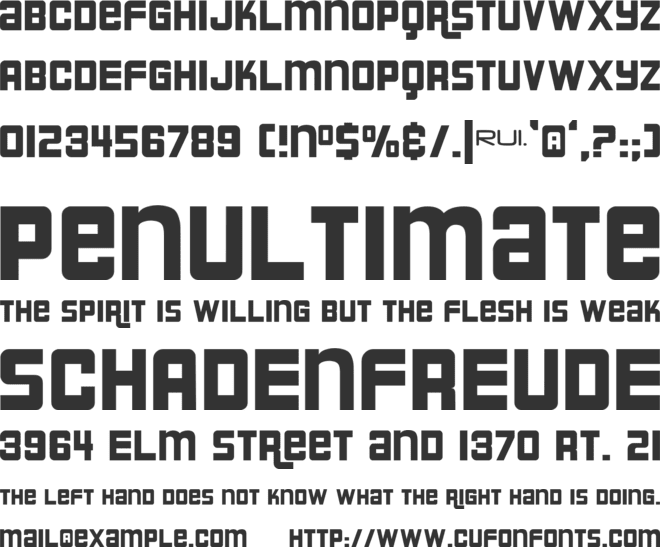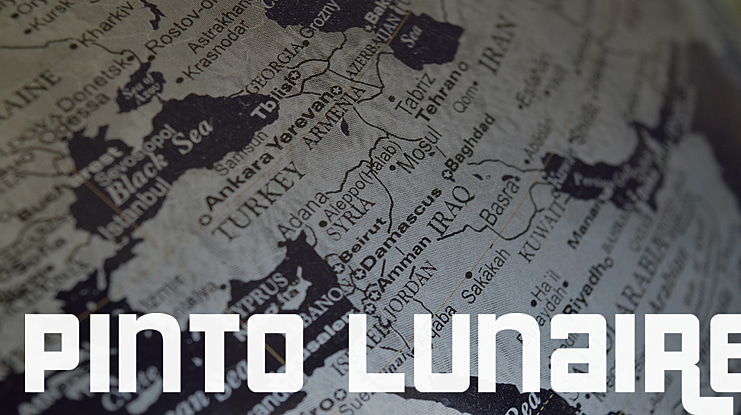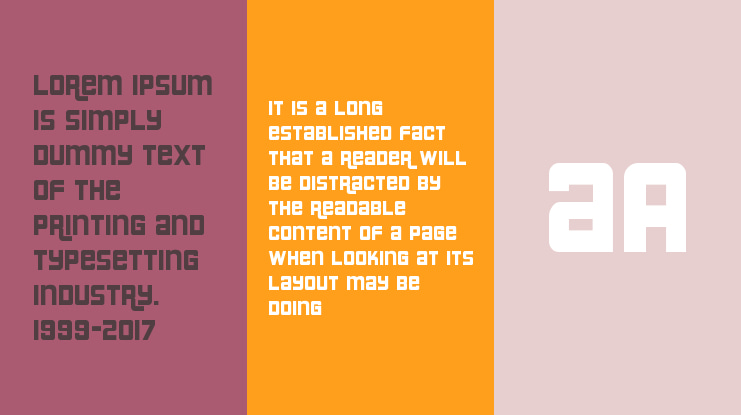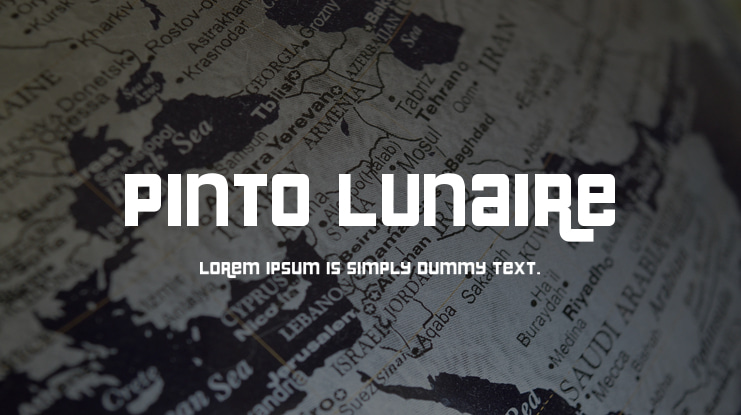
Pinto Lunaire Font
The Pinto Lunaire font is a clone of late-Sixties font, Pinto Flare and inspired by Pricedown Ray Larabie. It has a lunatic taste.
To access "R" with a tail, use the lowercase letter "r".